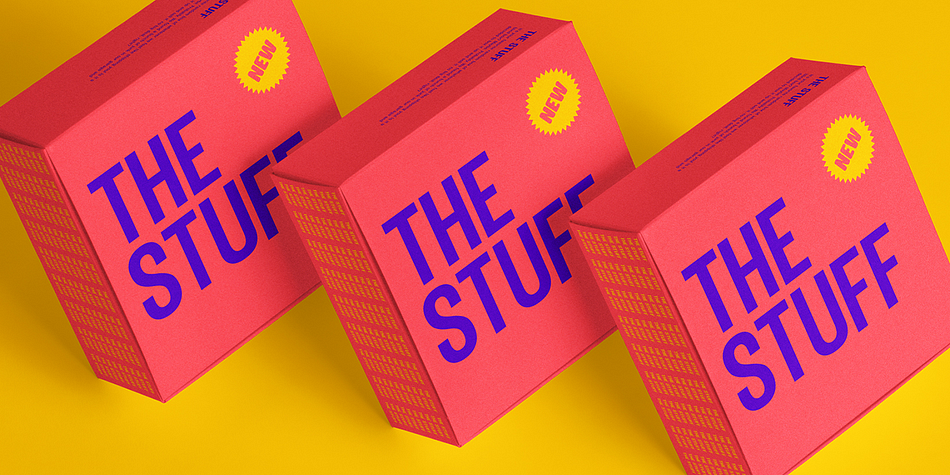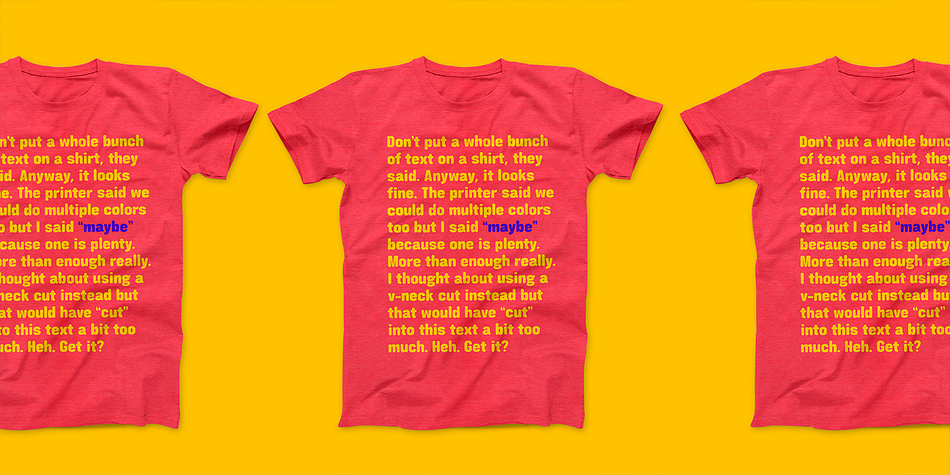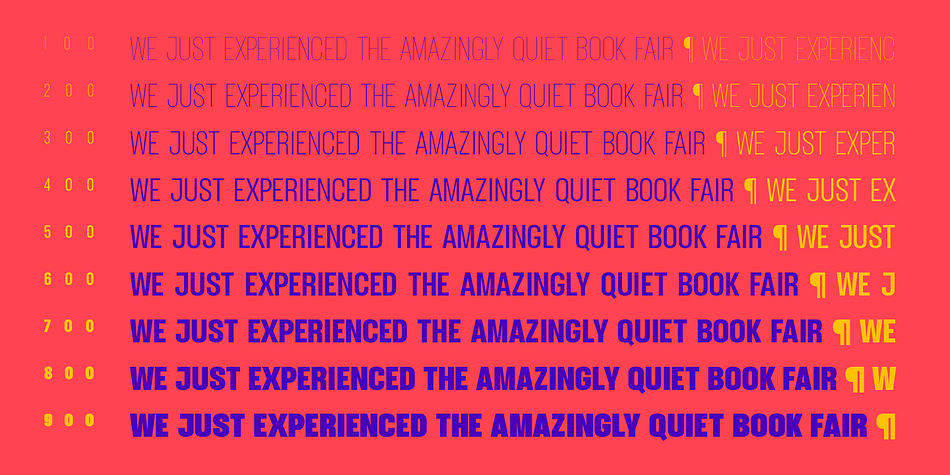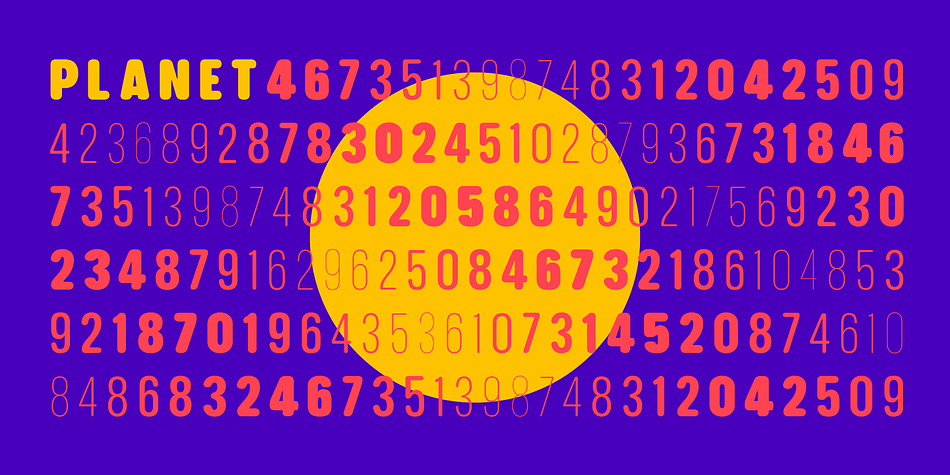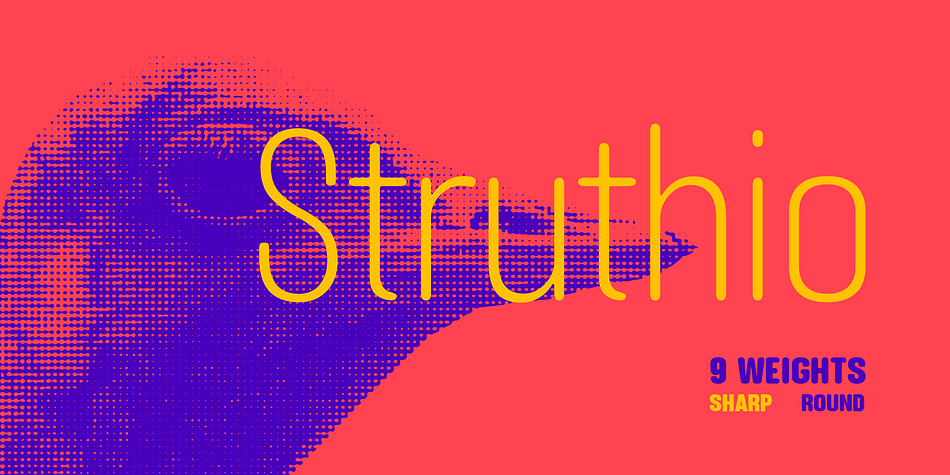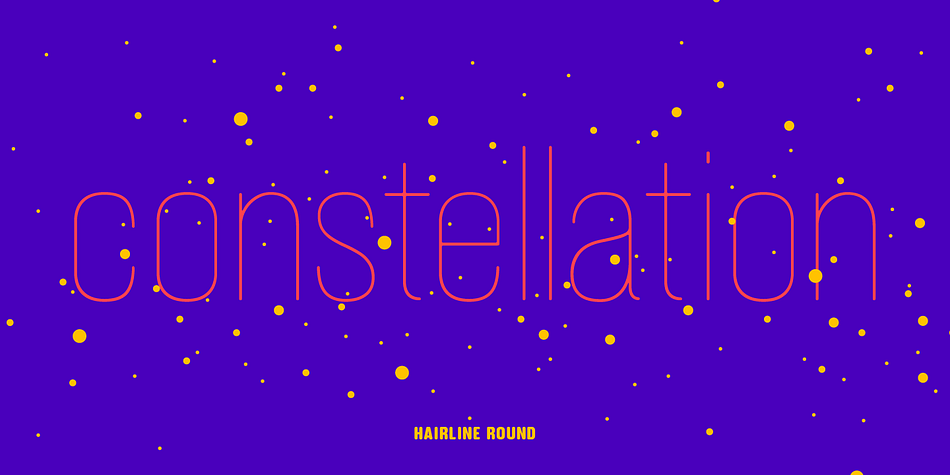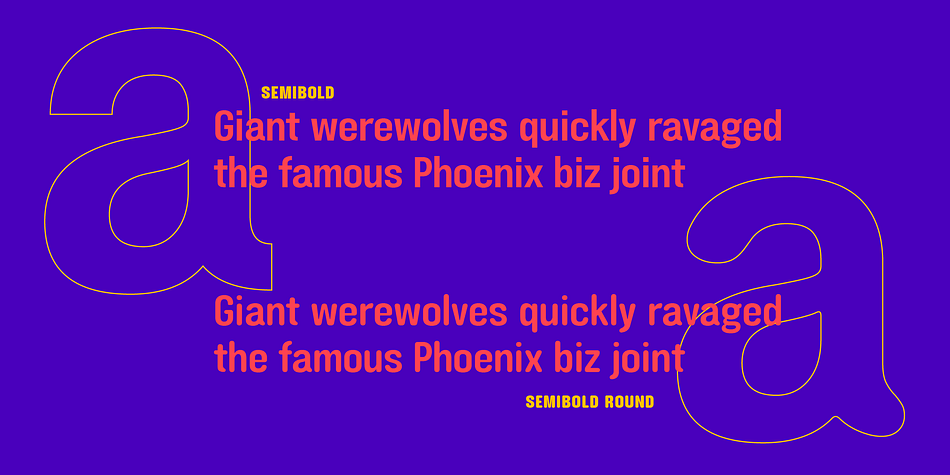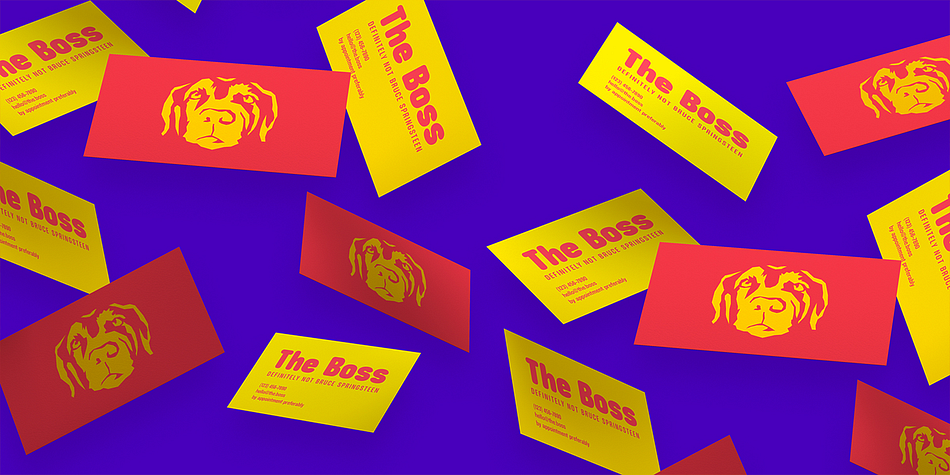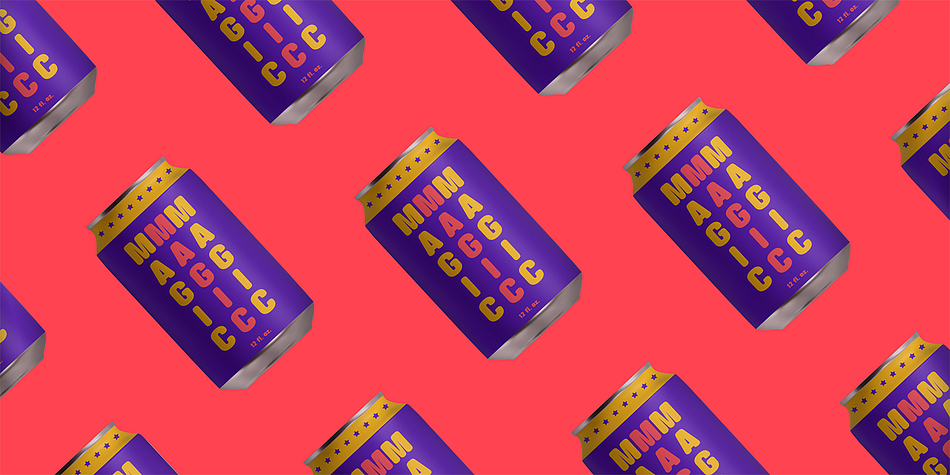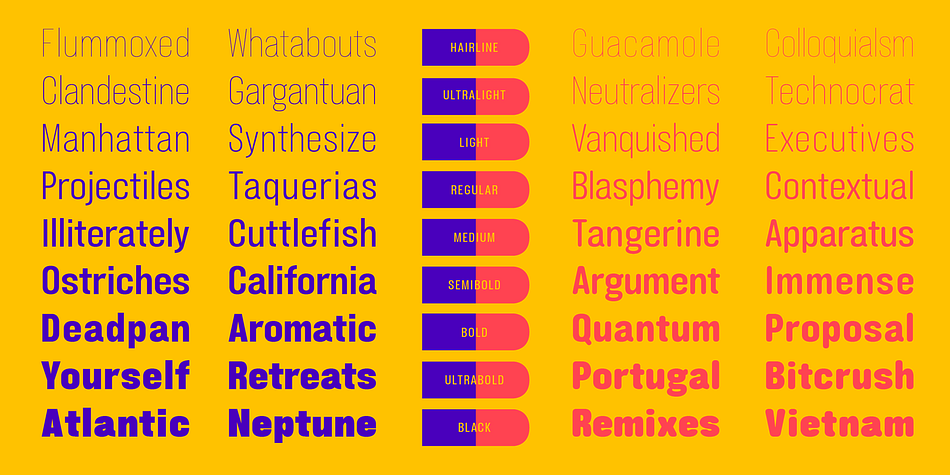
Designed by Tyler Finck, Struthio is a sans serif font family. This typeface has eighteen styles and was published by Tyler Finck.
Struthio is the successor to Ostrich Proper, a clean and curvy sans with millions of potential uses. OK maybe not billions. This new version is so different that it needed its own name. The heaviest weight (black) is thicker than ever, and that scales throughout the other eight weights.
But the most exciting – and fitting – design choice is the rounded styles. Now it’s ready for billions of potential uses.